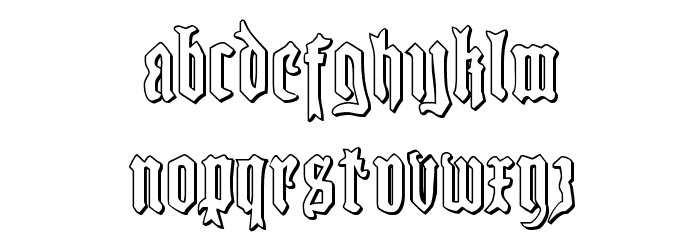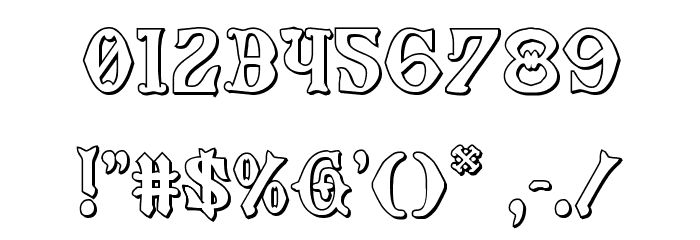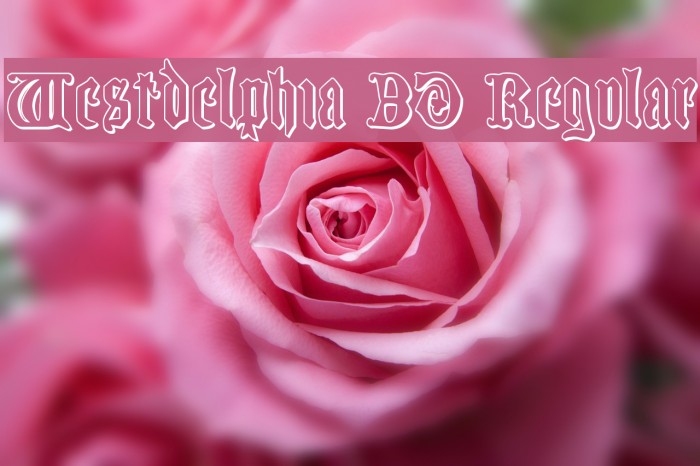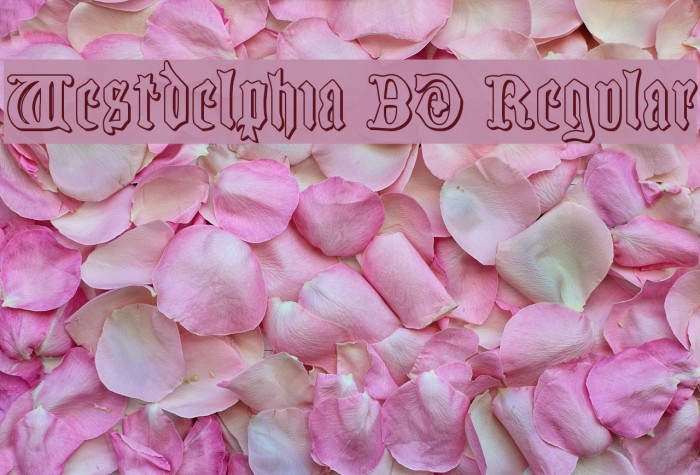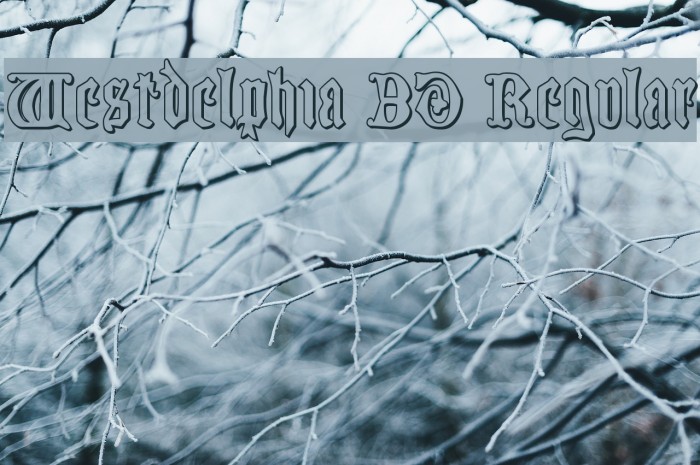
Westdelphia 3D Regular Font
This font features a bold and striking 3D effect that gives each character a sense of depth and dimension. The letters are designed with a decorative flair, incorporating intricate curves and angles that evoke a sense of gothic or medieval style. The uppercase letters are particularly elaborate, with unique embellishments that make them stand out. The lowercase letters maintain the same stylistic elements, ensuring consistency throughout the typeface. Numbers and special characters are also included, each with the same attention to detail and design. The font's overall appearance is both eye-catching and sophisticated, making it suitable for a variety of creative projects.
A bold, decorative 3D font with gothic influences and intricate detailing.
- Proposed Projects: Ideal for use in posters, logos, book covers, and any project requiring a dramatic and artistic touch.